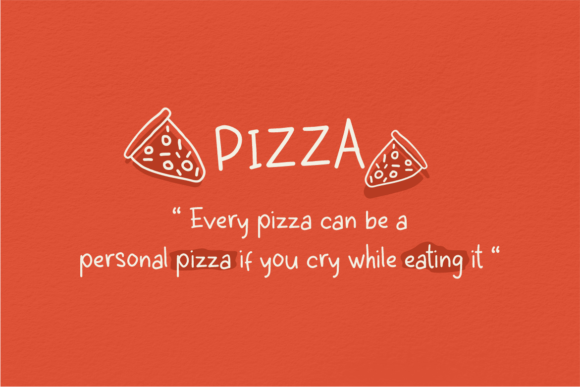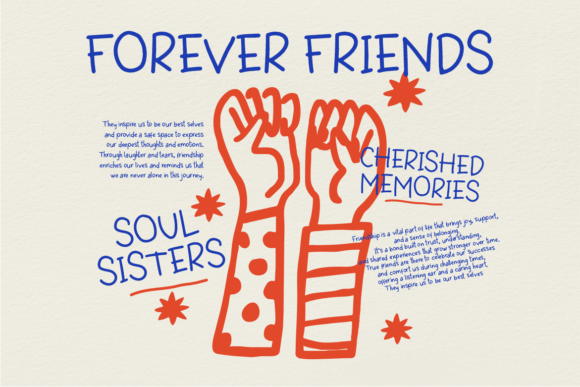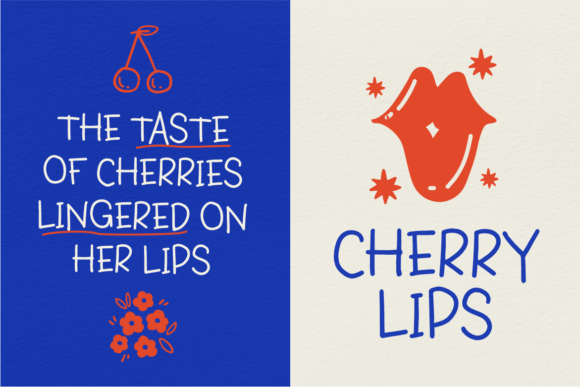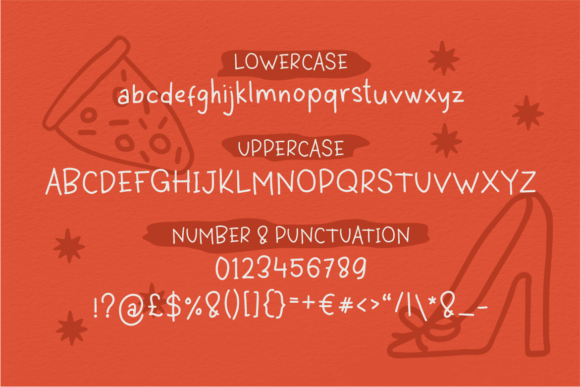
Introducing Blimblom Font: Unleash the Joy of Childhood Creativity in Your Designs
Are you looking for a font that captures the essence of childhood creativity and spontaneity? Look no further than Blimblom, a delightful handwriting font that brings a touch of innocence and fun to your designs. This playful typeface features rough, scribble-like letters that mimic the carefree strokes of a child’s drawing, making it perfect for projects that need a unique and whimsical touch.
The Charm of Blimblom
Each letter in Blimblom is meticulously crafted to convey a sense of whimsy and informality, giving your designs a unique, hand-drawn charm. The font’s rough, sketch-like quality gives your designs an authentic, personal touch, reminiscent of the vibrant drawings found in a child’s sketchbook. Whether you’re designing logos, crafting invitation cards, or creating eye-catching posters, Blimblom adds a distinctive, playful touch that ensures your work stands out.
Blimblom’s childlike style is ideal for projects aimed at younger audiences or those that want to evoke a sense of joy and creativity. However, its versatility makes it suitable for a wide range of applications, from branding and packaging to book covers and greeting cards. The font’s playful and informal nature allows it to be used in various contexts, making it a valuable addition to any designer’s toolkit.
Blimblom is a dream come true for designers and crafters looking to add a personal touch to their work. The font’s unique and playful style makes it perfect for a variety of projects, including:
- Logos and branding: Create a memorable and distinctive brand identity with Blimblom’s hand-drawn charm.
- Invitation cards and party decor: Add a touch of whimsy and fun to your invitation cards and party decor with Blimblom’s playful style.
- Posters and flyers: Create eye-catching posters and flyers that grab attention with Blimblom’s bold and colorful style.
- Book covers and publishing: Give your book covers a unique and eye-catching look with Blimblom’s childlike style.
- Greeting cards and stationery: Add a personal touch to your greeting cards and stationery with Blimblom’s hand-drawn charm.
Why Choose Blimblom?
So, why choose Blimblom for your next project? Here are just a few reasons:
- Unique and playful style: Blimblom’s hand-drawn style sets it apart from other fonts, making it perfect for designers looking to add a personal touch to their work.
- Versatile: Blimblom can be used in a variety of contexts, from branding and packaging to book covers and greeting cards.
- High-quality: Blimblom is a high-quality font that is designed to deliver exceptional results in your designs.
In conclusion, Blimblom is a delightful handwriting font that captures the essence of childhood creativity and spontaneity. Its playful and whimsical style makes it perfect for designers and crafters looking to add a personal touch to their work. With its versatility, ease of use, and high-quality design, Blimblom is an excellent choice for a wide range of projects. So, why not give Blimblom a try and see how it can bring a touch of joy and creativity to your designs?